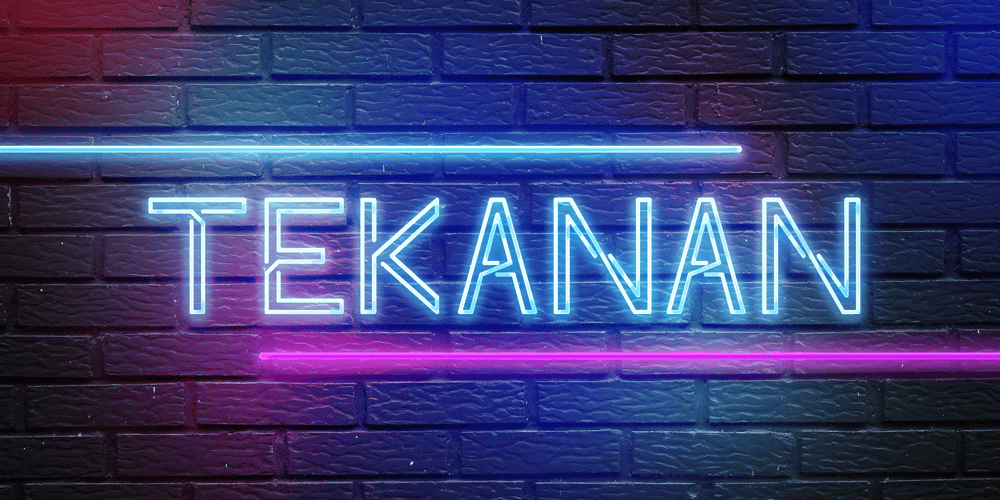
Tekanan Font Family was designed by Zainul Faozi and published by San Studio. Tekanan contains 2 styles and family package options. Tekanan Typeface is an experiment and designed by Zainul Faozi. Tekanan Typeface looks futuristic and it’s a great choice to use on your designs, such as a shop sign, poster, cover, headline, and more.Designer: Zainul FaoziPublisher: San Studio